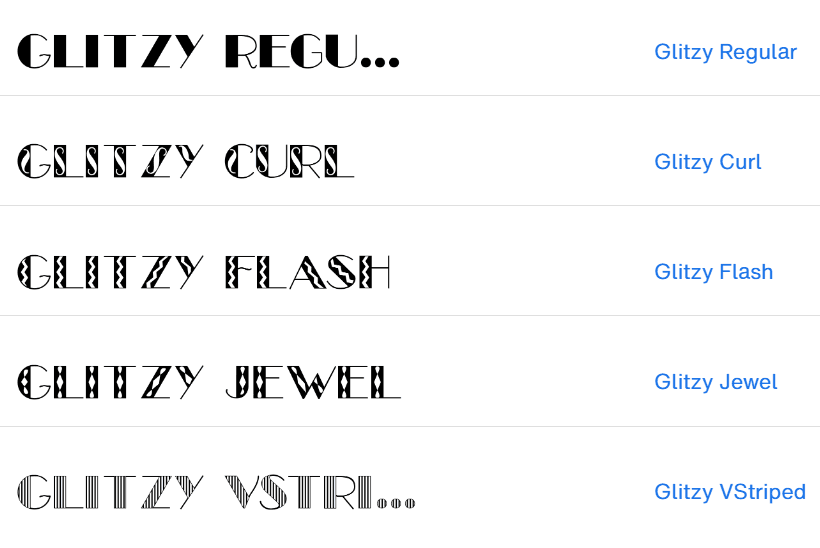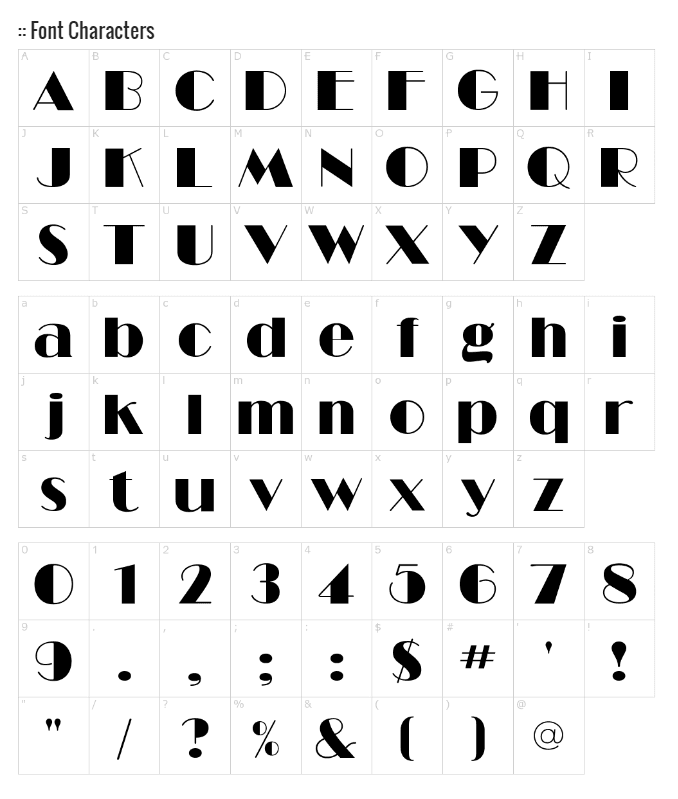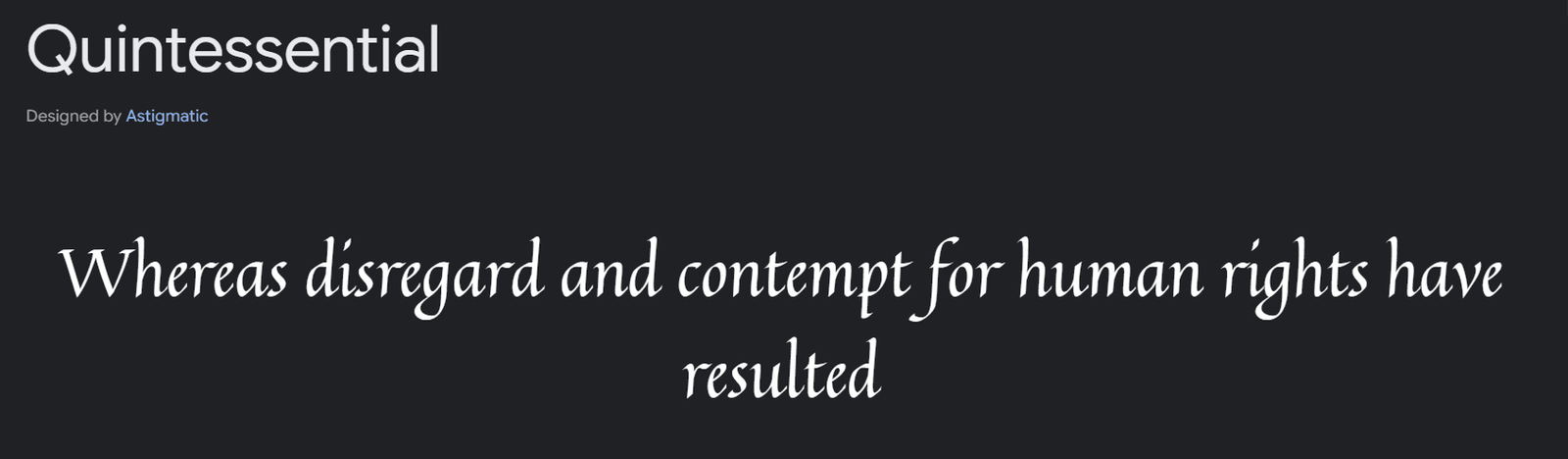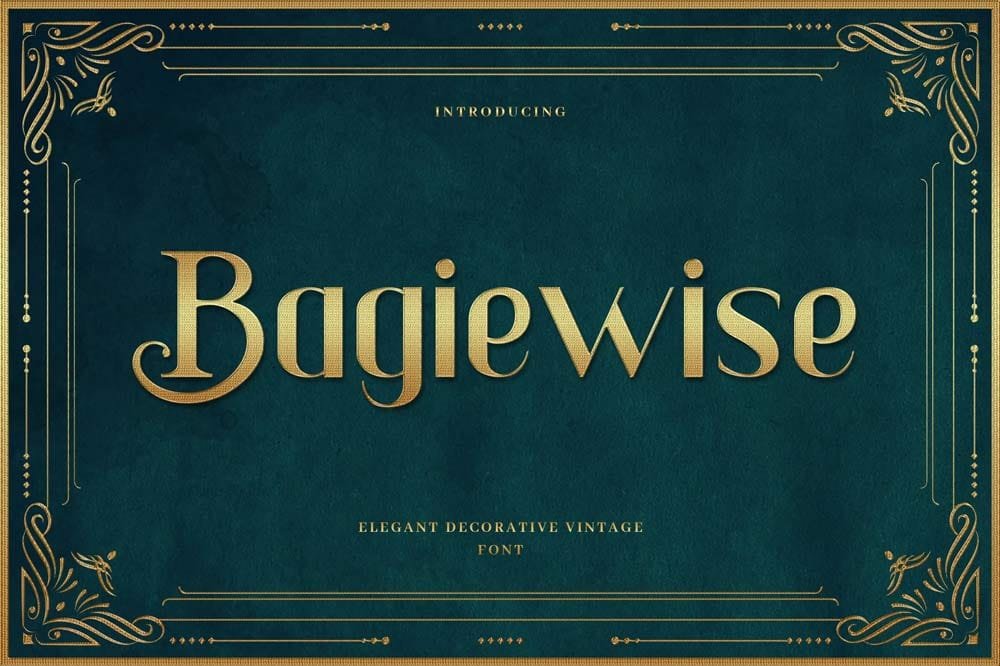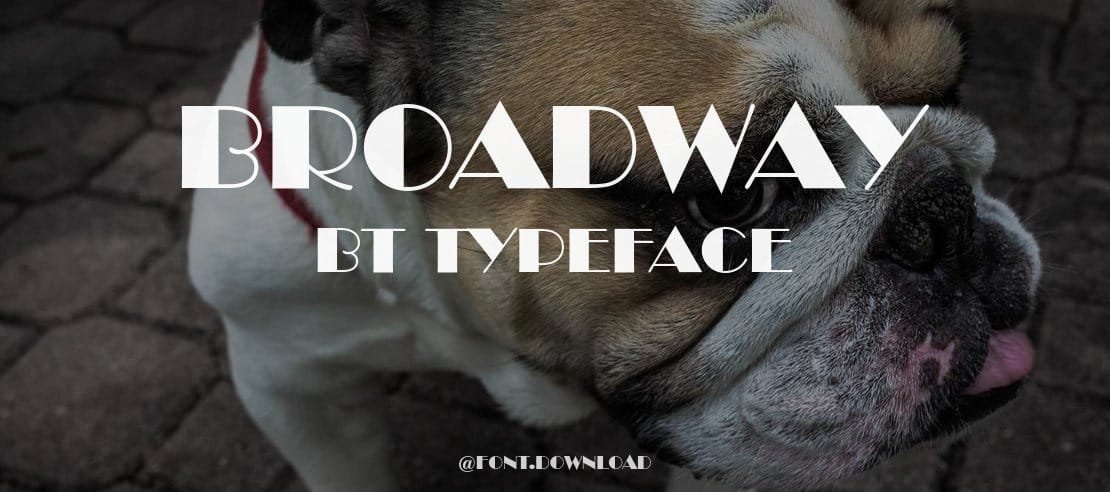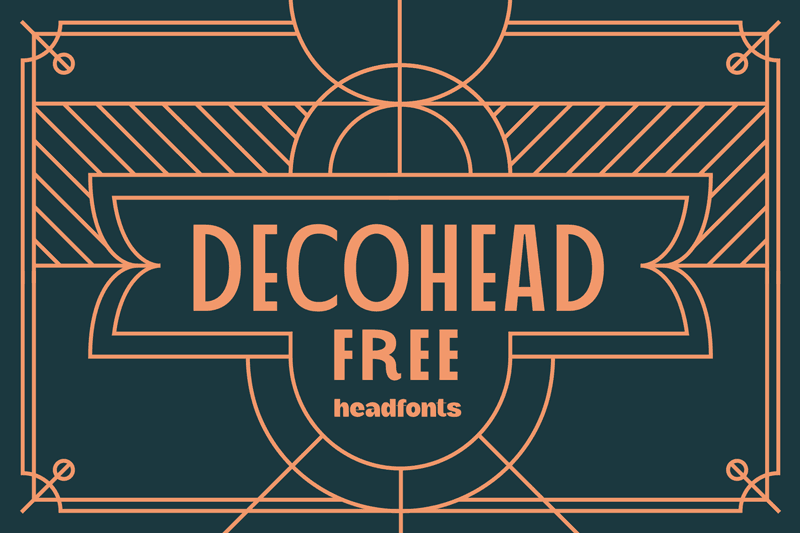
Art Deco Type Fonts: 15 stunning options to step up your design game
Do you want to add a touch of vintage glamour to your designs? Art Deco type fonts might be just what you need. These fonts are the perfect blend of elegance and modernity, making them ideal for projects that require a stylish, timeless look. In this article, we’ll explore ten stunning Art Deco type fonts that will take your design game to the next level.
What Makes Art Deco Type Fonts Special?
Art Deco type fonts derived from the Art Deco movement of the 1920s and 1930s, known for bold, geometric shapes, clean lines, and luxurious details. Unlike the complicated designs of the Art Nouveau period before it, Art Deco focused on modernity and sophistication, often drawing inspiration from technology, industry, and ancient cultures.
These fonts typically feature sharp angles and symmetrical patterns, creating a sense of order and elegance. They create a sense of glory, which makes them popular in luxury branding, architecture, and entertainment. What sets Art Deco type fonts apart is their ability to combine function with artistic flair, making them suitable for both decorative and practical uses.
In modern design, Art Deco type fonts are used to add vintage glamour and timeless sophistication to projects. Whether you’re designing a logo, creating an event invitation, or designing an editorial layout, Art Deco fonts can instantly enhance the look of your work with a classic yet modern vibe.
Where Are Art Deco Type Fonts Mainly Used?
Art Deco type fonts are incredibly versatile and can be used in a wide range of design projects. They are often chosen for branding luxury products and services because their bold, sophisticated look shows quality and exclusivity. These fonts are also a favourite for event invitations, adding a touch of elegance and vintage charm, especially for 1920s or retro-themed events.
In poster and advertising design, the geometric nature of Art Deco fonts helps to grab attention and convey impactful messages, making them ideal for creating a sense of drama. In editorial design, they are used for headlines and headings, providing a strong contrast to the body text and enhancing the sophistication of the layout.
Art Deco fonts are popular in packaging design, especially for luxury products such as perfumes and spirits, adding sophistication and helping products stand out. They are also used to bring a vintage but modern feel to website design, especially in fashion, lifestyle and creative industry sites. Finally, these fonts are widely used in signage, particularly in places that evoke history or nostalgia, such as theatres, hotels, and historical sites.
The 10 Best Art Deco Type Fonts
1. Broadway
Why It Stands Out:  Broadway is one of the most recognisable Art Deco fonts, with thick lines and unique curves. It’s perfect for headlines and titles that need to grab attention.
Perfect For: Posters, invitations, and branding.
Hidden Gem: Despite its popularity, many designers overlook its potential for digital media.
2. Metropolis
Why It Stands Out: Inspired by the industrial style of the 1920s, Metropolis brings a modern twist to Art Deco. Its sharp lines and minimalist design make it versatile for both print and digital use.
Perfect For: Websites, brochures, and logos.
Hidden Gem: Metropolis is highly customizable, allowing designers to create a unique look by adjusting weights and styles.
3. Glitzy
Why It Stands Out: True to its name, Glitzy is all about glamour. This font combines the classic Art Deco aesthetic with a modern, glamorous twist, making it perfect for luxury brands.
Perfect For: High-end branding, luxury packaging, and event invitations.
Hidden Gem: Glitzy’s versatility shines when paired with metallic colors or foil accents.
4. Deco Machine
Why It Stands Out: Deco Machine is a bold, industrial-inspired font with strong lines and a mechanical feel. It’s perfect for projects that require a powerful, masculine touch.
Perfect For: Automotive brands, tech companies, and industrial design.
Hidden Gem: The industrial edge of this font can be softened with color choices and layout, making it surprisingly versatile.
5. Ritz
Why It Stands Out: Ritz is an elegant, condensed typeface that shows sophistication. Its tall, narrow characters make it perfect for adding a touch of class to any project.
Perfect For: Editorial design, luxury branding, and formal invitations.
Hidden Gem: Although often used in print, Ritz also excels in digital media, especially for fashion and lifestyle brands.
6. Jazz Age
Why It Stands Out: Jazz Age captures the essence of the roaring 20s with its playful, rhythmic style. It’s ideal for designs that need a bit of vintage fun.